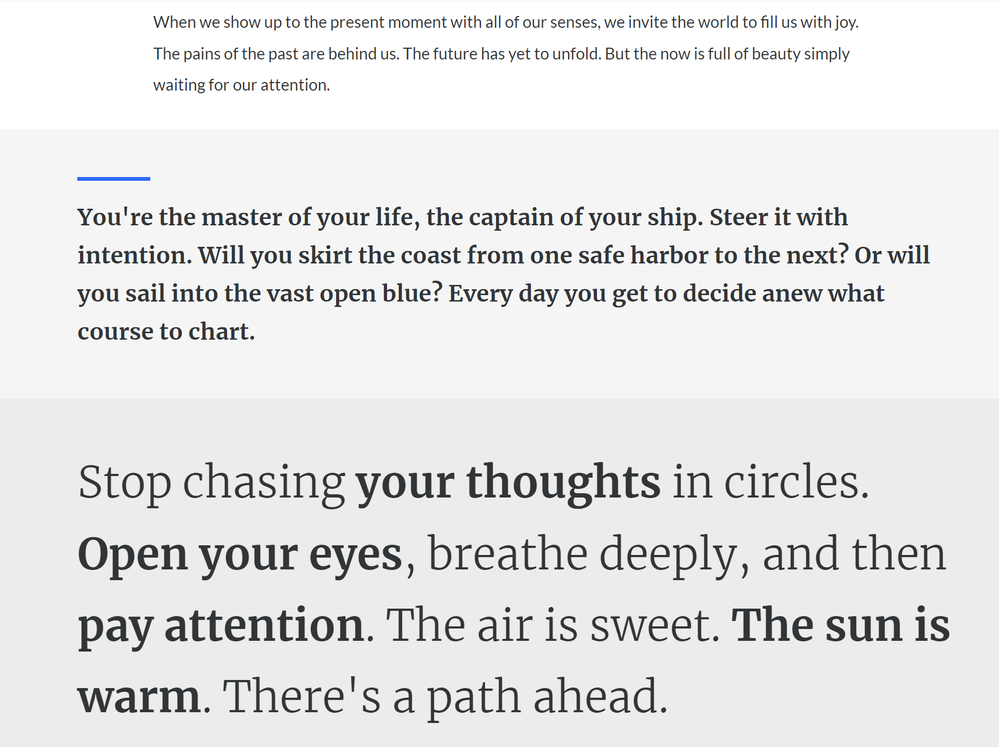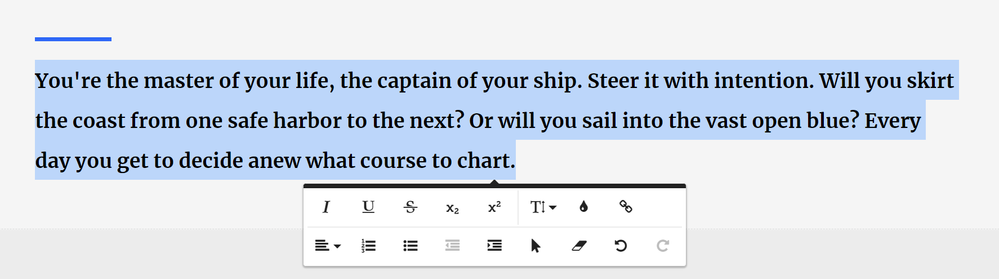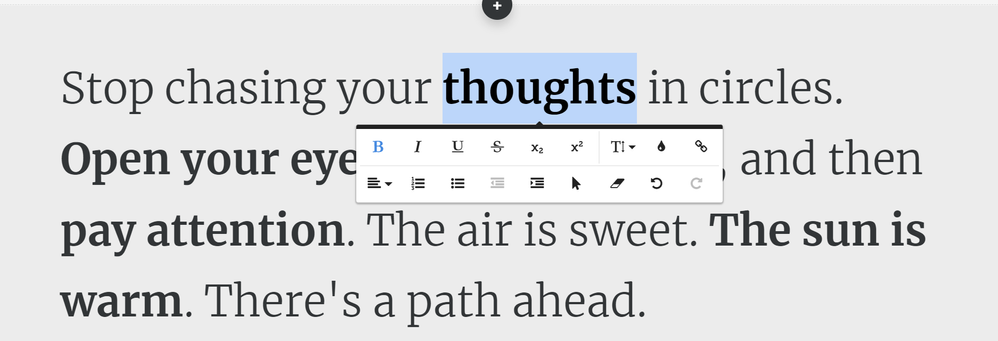
I have uploaded a custom font for a project which I primarily want to use in headings but I notice that Rise also uses this font for other layout elements such as Statements and Quotes. Can I stop this happening and force these elements to use the body font (in this case Merriweather)? The heading font is a display font and too much text in it looks a bit weird.
Hey, John! Unfortunately, there isn't a way to choose which blocks use the Headings font and which use the Body font. If you have time to log a feature request, that would be super helpful!
In the meantime, I compiled a list of all the blocks that use the Headings font. Hopefully, it will help you plan your lesson outline so you can make sure your content and your blocks are in perfect harmony.
Not really sure why so many blocks use that heading font...by their very nature heading fonts shouldn't be used for larger blocks of text. Using the heading font on BOTH sides of the Flashcards is really a big design error.
The list is great! It would also be very helpful to know which ones allow you to choose Regular or Bold font. One of our work arounds is to upload different fonts into Regular, Bold, and Italic. (e.g. Regular - Lato, Bold - Knockout, Italic - Wisdom) For some of the places where the heading font is used, you can't even choose the Regular font, which is frustrating. Knowing where we can use the Regular Heading font would be super helpful!
I am having a similar issue, but it's that the font is not our custom font. The statement blocks are showing in a serif font that is different from our custom font.
The quick menu works for changing some style elements like bold and font size, but the Bold/no Bold option is not always available.
I'm adding samples below.Is there a way to get the statements to use our custom font?
So, here's what we've done. Instead of uploading bold and italic versions of the same Headings font, we have uploaded different fonts to give us some flexibility with the trade-off being we cannot actually use bold within our headings.
Here is what we have uploaded for the Header font:
I also prepared a spreadsheet (attached) that identifies which blocks that use the heading font allow bold and regular. This helps us to better understand when we can and can't use our bonus fonts as headers. The couple that are really limiting for us are the Attachment, Accordion Headings Tab Headings, Labeled Graphic Titles, Sorting Activity - Categories, Sorting Activity - Cards.